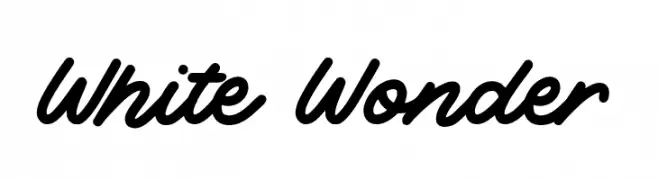
A playful and modern font with tall, narrow letters and consistent stroke width.
A lively and expressive handwritten font with fluid strokes and medium contrast.
A bold, flowing script font with dynamic curves and expressive style.
A dynamic and elegant script font with fluid strokes and a sophisticated slant.
A flowing, cursive script font with elegant loops and a handwritten feel.
A playful, handwritten script font with a whimsical and flowing style.
A playful handwritten font with fluid, elegant letterforms.
A smooth, flowing script font with a natural handwriting style.
A bold, handwritten font with a playful and energetic style.
A lively handwritten font with fluid, dynamic strokes and a casual style.